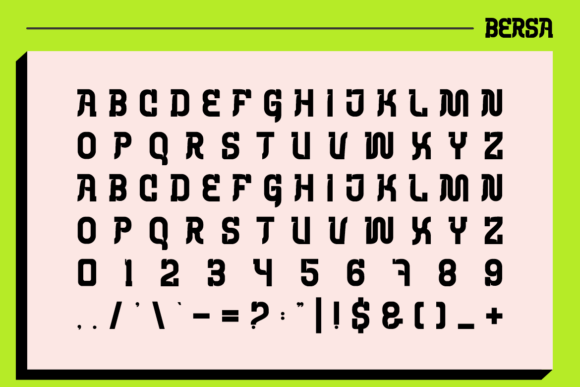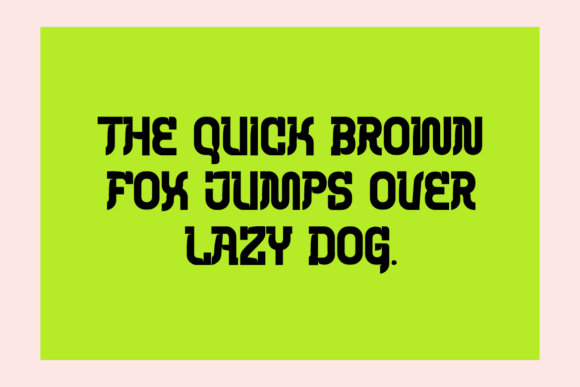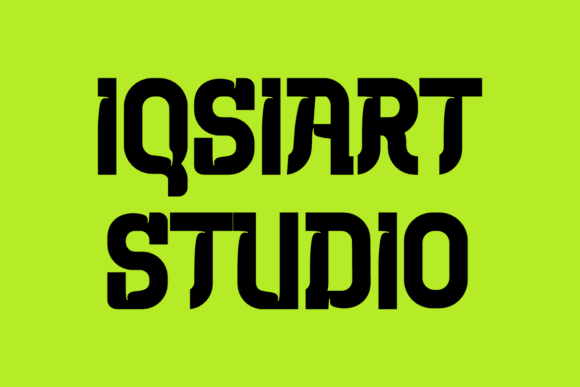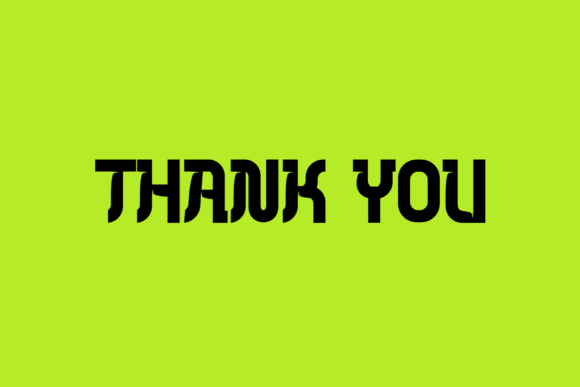
Bersa Font: A Quirky yet Versatile Design Companion
Have you ever stared at a blank canvas, eager to bring your creative vision to life, only to be met with a font that just doesn’t seem to fit? That’s when the magic happens – you stumble upon the perfect font that elevates your design from ordinary to extraordinary. For many designers, that font is Bersa.
Bersa Font is a unique display font that defies conventions, making it an ideal choice for designers looking to add a touch of personality to their work. Its quirky charm can be applied to a wide range of contexts, from bold headlines to subtle text overlays. Whether you’re working on a fashion brand, a tech startup, or a quirky blog, Bersa Font is sure to bring a fresh perspective to your design.
What makes Bersa Font truly valuable is its ability to adapt to any design style. Its versatility makes it an essential tool in every designer’s toolkit, allowing them to experiment with new ideas and push the boundaries of creativity.
Bersa Font Key Features
- Font Family: Bersa Font is a sans-serif font family designed specifically for use in the firearms industry, particularly for the Bersa brand.
- Size: The font family includes a range of weights from Light to Extra Bold, offering flexibility in design applications.
- Resolution: Designed to be high-resolution, the Bersa Font is suitable for use in digital and print media, including logos, signage, and marketing materials.
- Unique Characteristics: The font’s clean and modern design, along with its custom-designed letterforms, make it a distinctive choice for the firearms industry.
Bersa Font Review
Overall, I was quite excited to dive into the Bersa Font. As a designer, I’m always on the lookout for fonts that can add a touch of sophistication to my projects. Here’s what I found:
- Unique aesthetic: Bersa Font has a distinct, modern look that sets it apart from other sans-serif fonts.
- Good legibility: The font is clear and easy to read, even at smaller font sizes.
- Multiple weight options: The font family includes a range of weights, from light to bold, making it versatile for different design applications.
- Limited language support: Bersa Font may not be as comprehensive in terms of language support as other fonts, which could be a limitation for global designs.
- No italics: The font does not have an italic version, which could be a drawback for projects that require emphasis or quotation.
- Not ideal for body text: While Bersa Font is great for headlines and titles, it may not be the best choice for body text due to its relatively large x-height.
Overall, Bersa Font is a solid choice for designers looking for a unique, modern sans-serif font. While it has some limitations, its strengths make it a great option for projects that require a touch of sophistication.
Bersa Font is ideal for:
Open Sans is a modern sans-serif font that is highly legible and versatile. It’s ideal for digital applications, such as websites and mobile apps, where readability is crucial. Open Sans is similar to Bersa Font in its clean and minimalist design, but it has a more neutral tone and is more widely used.